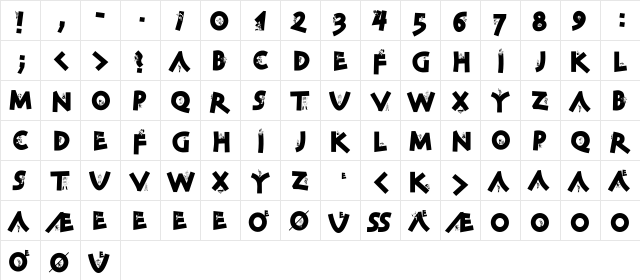
CorrosClassicClimbers Regular
CorrosClassicClimbers wears its vintage influences proudly, with letterforms that recall mid-century signage, classic packaging, and nostalgia-driven design.
Font Pairing: Combine CorrosClassicClimbers with a simple slab or neutral sans — period-accurate companions reinforce the vintage feel without competing for attention.
Pro Tip: Use CorrosClassicClimbers for headlines and pull quotes rather than body copy — its personality is best appreciated in short, focused bursts.